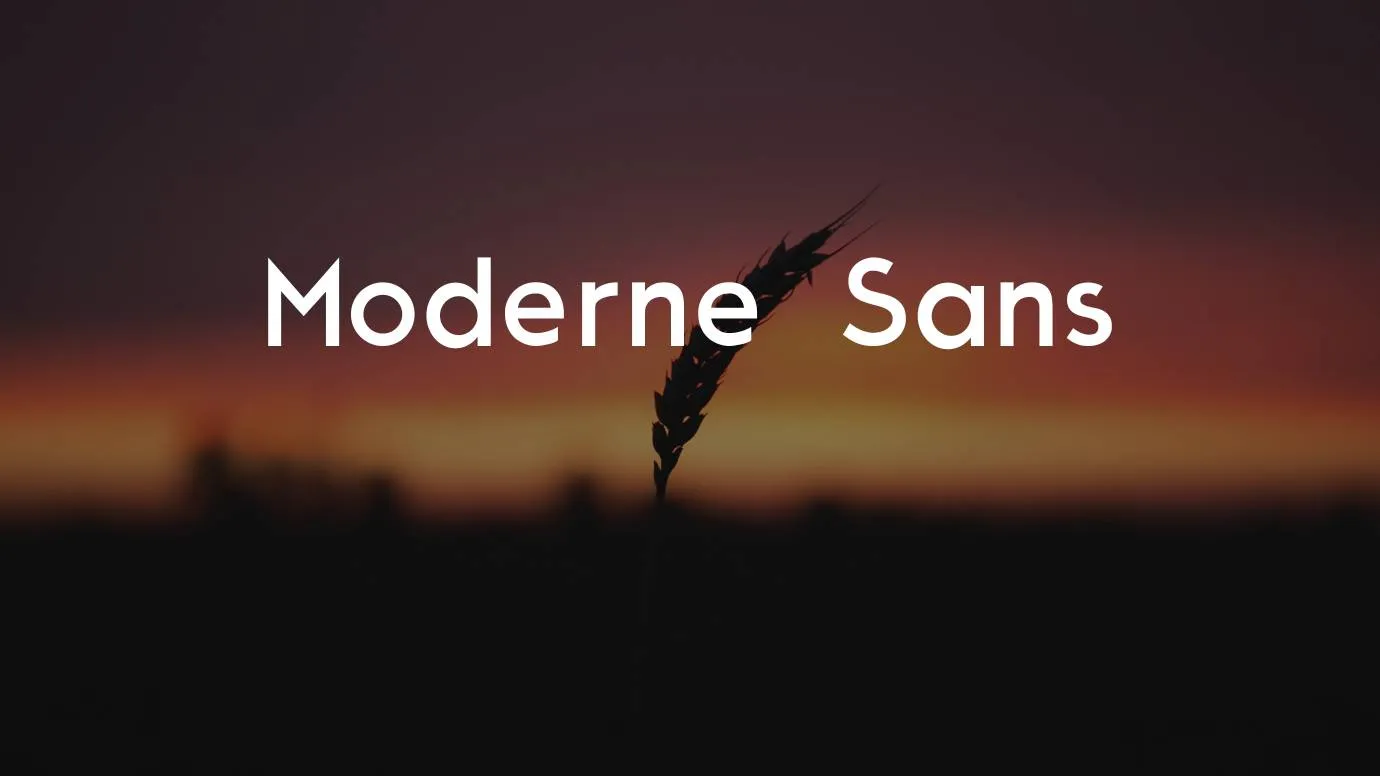
Moderne Sans is very clean and basic sans serif typeface for modern designs that come in one regular weight but offer many stylistic alternates, standard styles, and high-quality features to any type design or any size text.
As well, it has all case letters, numbers, general punctuations, symbols, icons, and many special characters. It can also make best paired with some other typefaces like Arial Font.
DesignerMarius Kempken
StyleSans serif